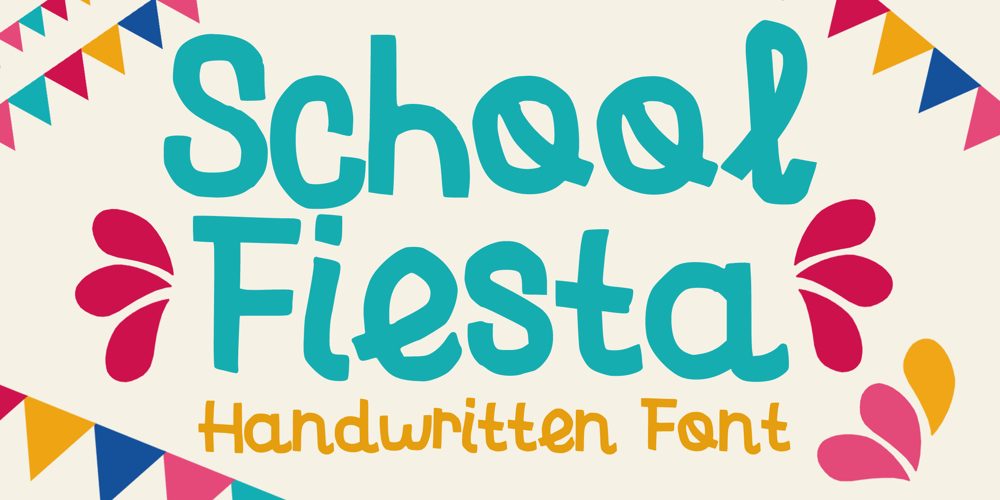
School Fiesta Font Family was designed by Gabriel Valentinus and published by Mvmet. School Fiesta contains 1 styles and family package options. School Fiesta is a cool font that will be perfect for your school festival theme or other event displays. The fun, festive, and happy vibe will be there when you use it. You can use it for anything ranging from t-shirts, other merchandise, kids’ book designs, and greeting cards to stickers and posters, or anything that needs a casual touch. Fall in love with its incredibly versatile style, and use it to create lovely designs!